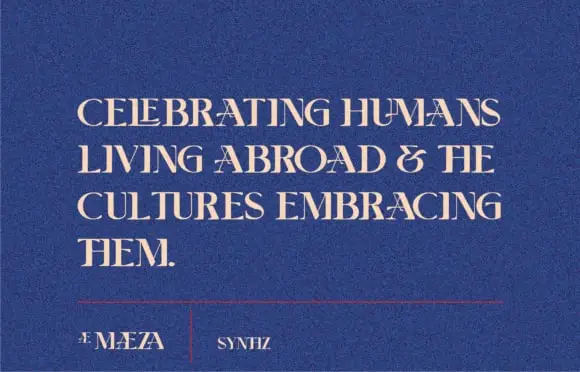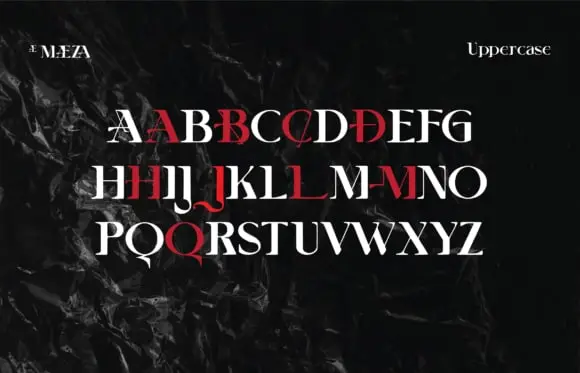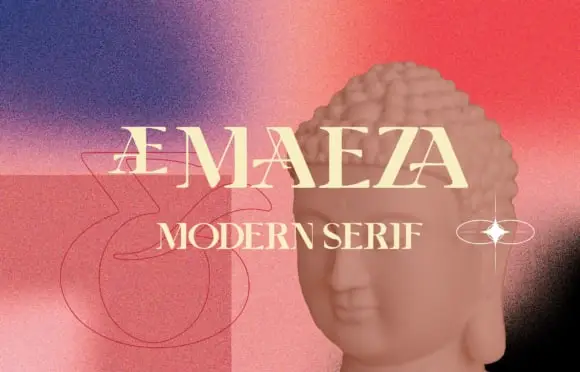
Ae Maeza Font
The Ae Maeza Font is a modern typeface that combines elegance with versatility, making it suitable for a variety of design projects. With its clean lines and unique character shapes, this font is perfect for branding, logos, web design, and print materials.
• Ideal for headlines, logos, and branding materials
• Great for both digital and print applications
• Pair with complementary fonts for a balanced design